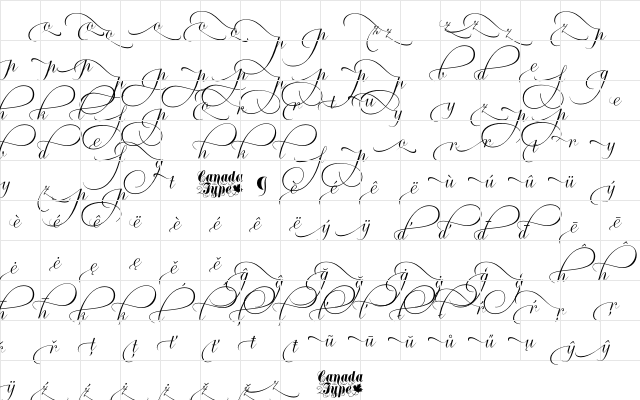
Ambassador Script Begs III flows with the natural rhythm of handwritten lettering, making it ideal for designs that call for warmth and personal expression.
Font Pairing: Combine Ambassador Script Begs III with a simple geometric sans for maximum contrast - the tension between flowing curves and clean structure is a classic typographic pairing.
Pro Tip: Use Ambassador Script Begs III for short runs of text - names, titles, or taglines. Extended body copy in script faces tires the eye quickly.